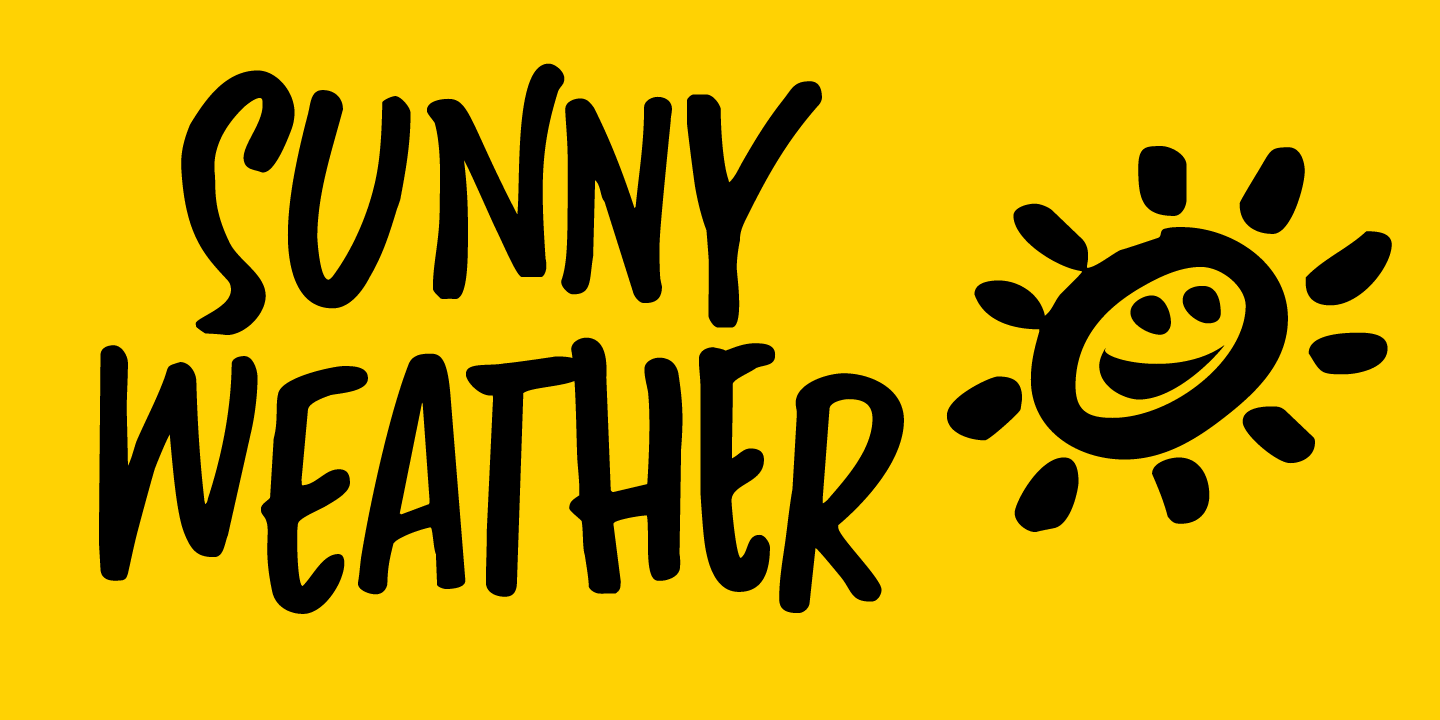
Sunny Weather Font is perfect for summer vacation branding, outdoor festival promotions, cheerful children's products, beach resort marketing, tropical beverage packaging, sunny day event invitations, outdoor recreation campaigns, and vibrant lifestyle brand communications.
What makes Sunny Weather Font exciting is its radiant warmth and infectious optimism that instantly brightens any design with sunshine-filled energy. This uplifting typeface combines cheerful character details with brilliant readability, creating letters that exude happiness, positivity, and carefree summer vibes. The font's bright aesthetic and joyful personality make it an ideal choice for brands seeking to communicate warmth, happiness, and sunny disposition to their audiences.
Sunny Weather Font family includes Regular, Bold, Light, Rounded, Outline, and Shadow variations, plus decorative sun rays and weather elements. Each style maintains the font's sunny character while providing comprehensive flexibility for creating bright, energetic design systems and cheerful brand communications that radiate positivity.
Cheerful design specialists consistently choose Sunny Weather Font Free Download for projects requiring uplifting appeal and bright visual impact. This remarkable typeface has gained recognition among vacation brands, children's companies, and outdoor lifestyle organizations worldwide. The font's ability to convey joy and sunny optimism makes it perfect for brands operating in tourism, recreation, and positive lifestyle markets.
The design philosophy behind Sunny Weather Font emphasizes radiant positivity and cheerful sophistication. Its letterforms feature bright, welcoming curves and carefully balanced proportions that reflect the warmth and energy of perfect sunny days. The font's distinctive elements include cheerful flourishes and sunny character variations that create immediate emotional connection with audiences seeking happiness and positive experiences.
Creative agencies specializing in vacation and lifestyle branding frequently select Sunny Weather Font for clients requiring bright, optimistic communication and cheerful brand expression. The font's versatility allows seamless integration into comprehensive sunny branding systems, from travel campaigns to children's product launches, ensuring consistent brand personality across all bright and cheerful touchpoints.
The technical craftsmanship of Sunny Weather Font demonstrates meticulous attention to cheerful typography requirements and positive design standards. Advanced OpenType features include contextual alternates and sunny ligatures that enhance creative possibilities for uplifting designs. The font's comprehensive character set and international language support make it suitable for global sunshine campaigns requiring both cheerful appeal and technical excellence.